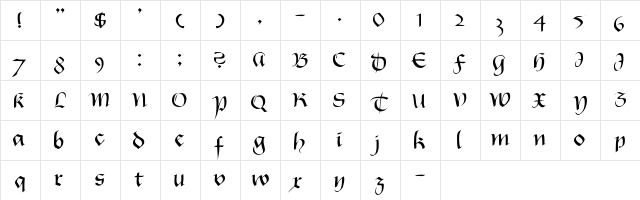
CallifontsA06PostScript Regular Font Preview
CallifontsA06PostScript Regular
Design Context for CallifontsA06PostScript Typeface
CallifontsA06PostScript brings a calligraphic fluidity to the page — its connecting strokes and expressive curves give it an unmistakably human quality.
Font Pairing: Combine CallifontsA06PostScript with a simple geometric sans for maximum contrast — the tension between flowing curves and clean structure is a classic typographic pairing.
Pro Tip: Use CallifontsA06PostScript for short runs of text — names, titles, or taglines. Extended body copy in script faces tires the eye quickly.